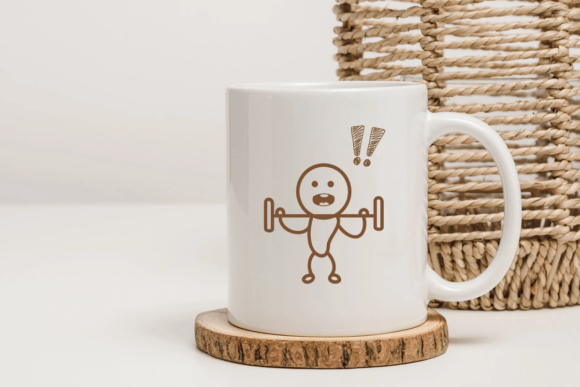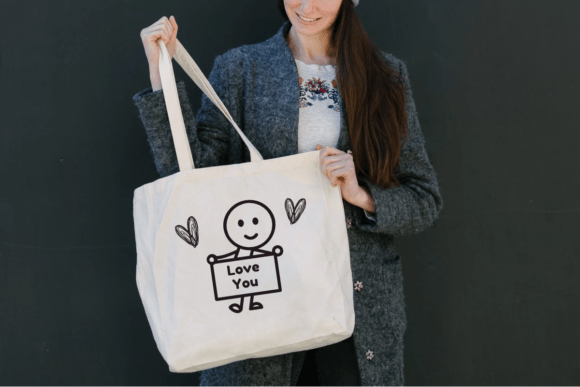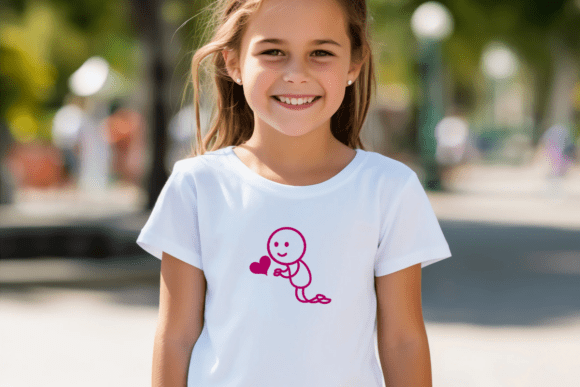
Doodle Stickers Font
About the Doodle Stickers Font
Explore the possibilities with Doodle Stickers Font, a font that offers both beauty and functionality. Doodle Stickers is a charming and playful dingbats font featuring adorable stick figure illustrations in various poses and activities. Ideal for stickers, planners, scrapbooking, kids’ projects, social media graphics, and fun branding, this font makes adding cute doodles effortless. Simply type a letter and watch your designs come to life with expressive characters!
Doodle Stickers excels in applications requiring a lighthearted and approachable aesthetic. It’s perfect for children’s books, greeting cards, playful branding for businesses targeting a younger demographic, and social media content. Avoid using it for large bodies of text or situations demanding readability; its informal nature is unsuitable for websites, lengthy documents, or formal branding.
Pairing it with a clean sans-serif like Open Sans for body copy creates a balanced contrast, maintaining readability while retaining the font’s whimsical charm. Alternatively, a simple serif like Lora can add a touch of sophistication to projects where Doodle Stickers is used sparingly, for instance, as an accent in headlines or logos.
The font’s overall personality is undeniably playful and friendly, conveying a sense of fun and approachability. Its effectiveness hinges on its ability to add a lighthearted touch without overwhelming the design.
Doodle Stickers Font Usage Examples
Doodle Stickers Font Example